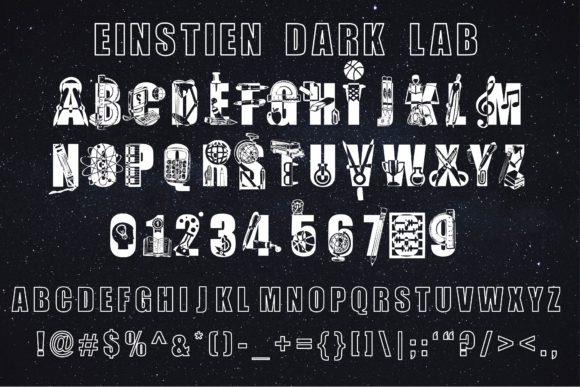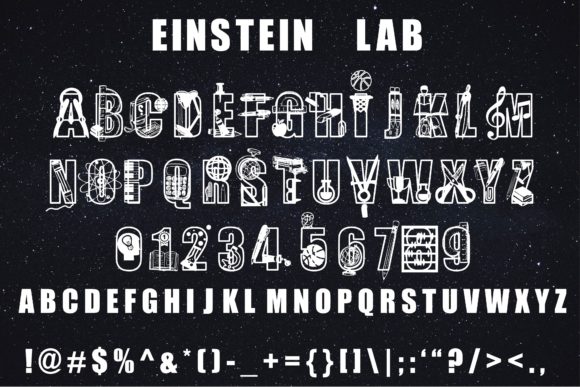
Introducing Einstein Lab Font: The Perfect Addition to Your Science-Themed Crafting Projects
Are you a designer, crafter, or science enthusiast looking for a unique and engaging font to elevate your projects? Look no further than the Einstein Lab Font! This fantastic display font features science-themed characters that are sure to add a touch of excitement and curiosity to any craft project. In this article, we’ll dive into the world of Einstein Lab Font, exploring its features, benefits, and uses, as well as provide tips and inspiration for incorporating it into your creative endeavors.
What is Einstein Lab Font?
Einstein Lab Font, also known as Einstein Lab duo font, is a carefully crafted display font designed to capture the essence of science and experimentation. With its distinctive characters and attention-grabbing style, this font is perfect for projects that require a dash of creativity and a pinch of scientific flair. Whether you’re working on a DIY craft, a science-themed poster, or a educational resource, Einstein Lab Font is sure to make your project stand out.
Key Features of Einstein Lab Font
- Science-themed characters: The Einstein Lab Font features a range of science-themed characters, including beakers, test tubes, and other laboratory equipment, making it perfect for science-themed projects.
- Display font: This font is designed to grab attention and make a statement, making it ideal for headings, titles, and other display text.
- Unique and creative: The Einstein Lab Font has a distinctive style that sets it apart from more traditional fonts, adding a touch of personality to your projects.
Benefits of Using Einstein Lab Font
So why choose Einstein Lab Font for your next project? Here are just a few benefits of using this fantastic font:
- Adds a touch of science and experimentation: The Einstein Lab Font is perfect for science-themed projects, adding a touch of authenticity and excitement to your work.
- Grabs attention: The display font style of Einstein Lab Font makes it perfect for headings and titles, grabbing the attention of your audience and drawing them in.
- Encourages creativity: The unique and creative style of Einstein Lab Font inspires creativity and imagination, making it perfect for crafters and designers looking to try something new.
Using Einstein Lab Font in Your Projects
So how can you use Einstein Lab Font in your projects? Here are a few ideas to get you started:
- Science-themed posters and flyers: Use Einstein Lab Font to create eye-catching posters and flyers for science-themed events, exhibitions, or presentations.
- DIY crafts and decorations: Add a touch of science and experimentation to your DIY crafts and decorations, such as beakers, test tubes, and other laboratory equipment.
- Educational resources: Use Einstein Lab Font to create engaging and interactive educational resources, such as worksheets, activity sheets, and science experiments.
- Social media graphics: Use Einstein Lab Font to create eye-catching social media graphics, such as science-themed memes, infographics, and quotes.
To get the most out of Einstein Lab Font, here are a few tips and inspiration to keep in mind:
- Experiment with different colors and textures: Add depth and interest to your projects by experimenting with different colors and textures.
- Combine with other fonts: Combine Einstein Lab Font with other fonts to create a unique and visually appealing design.
- Use in combination with images: Use Einstein Lab Font in combination with images of science-themed equipment, experiments, or concepts to create a powerful and engaging visual message.
| Font Name | Einstein Lab Font |
In conclusion, Einstein Lab Font is a fantastic display font that is perfect for science-themed projects. With its science-themed characters, unique and creative style, and ease of use, this font is sure to add a touch of excitement and curiosity to any craft project. Whether you’re a designer, crafter, or science enthusiast, Einstein Lab Font is a great addition to your font collection. So why not give it a try and see what amazing projects you can create?